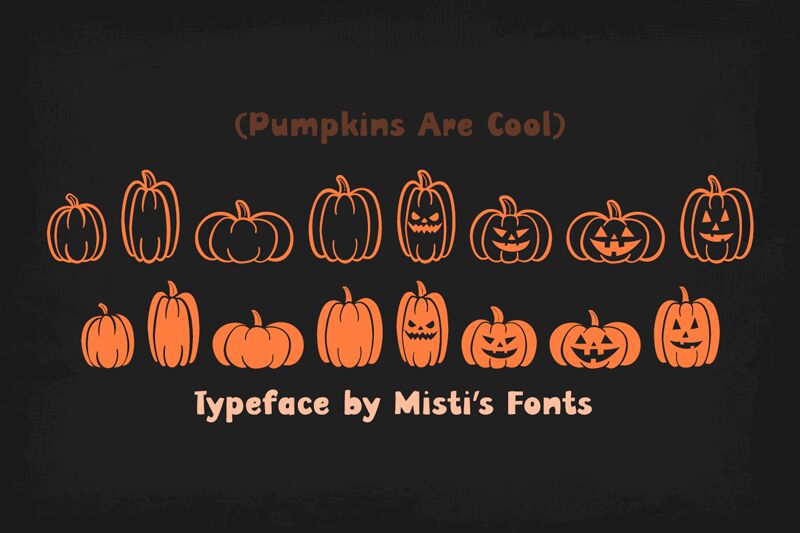
Pumpkins Are Cool font family by Misti's Fonts is a free holiday font that features two font styles with a playful, charming look. The font looks exactly what you'd expect it to based on its name; it's all about pumpkins and is suitable for anyone looking for a thematic design with this theme. Characteristic rounded letterforms give it inviting and friendly properties, perfect for projects that require a calm, yet fun tone.
This font can add a creative twist to theme-based packaging, branding, signs, flyers, logos, invitations, cards, and more. Whether you're working on a school or college project, Pumpkins Are Cool can be your secret recipe.
Pumpkins Are Cool is an adorable and eerie dingbats font perfect for enhancing your creative projects. This free font will add a unique touch to your designs, making them stand out. Whether you're working on Halloween-themed graphics or just want to inject some whimsy into your work, you'll be thrilled with the results.